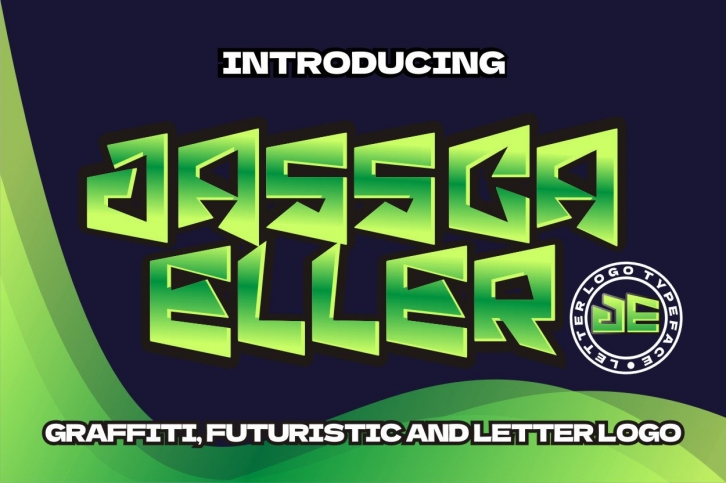
Jessica Eller is an awesome graffiti styled display font, that features a street art vibe. This font is suitable for various designs such as t-shirts, sportswear, logos, advertisements, and so much more.